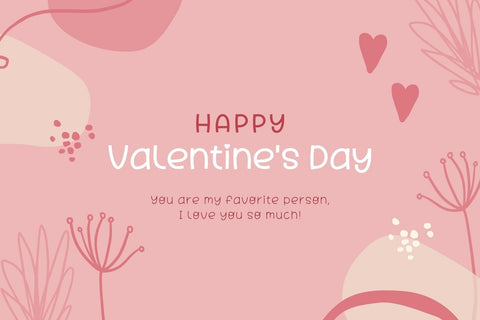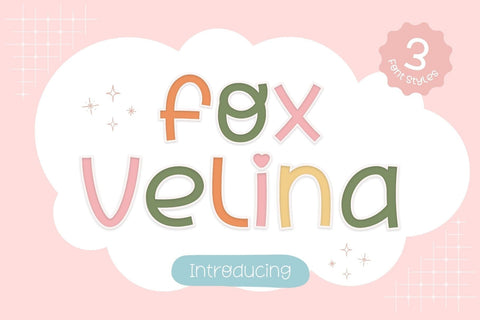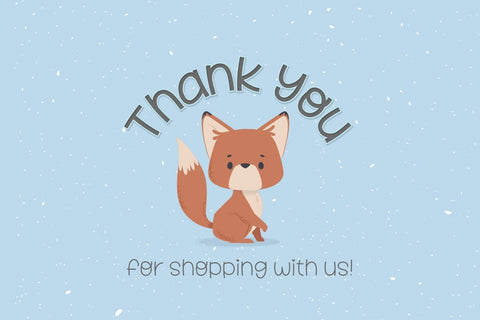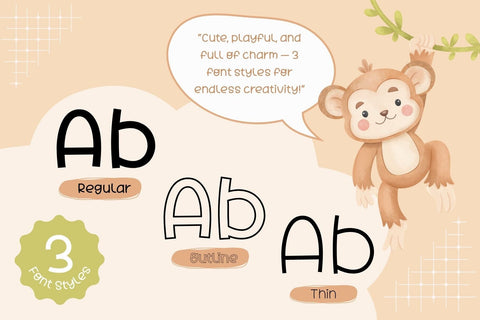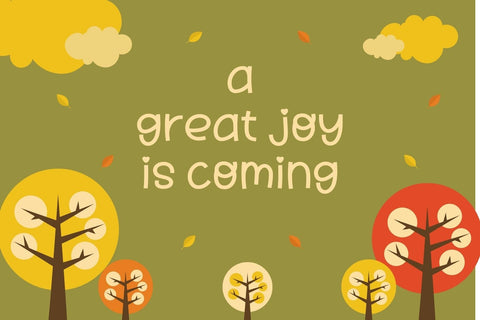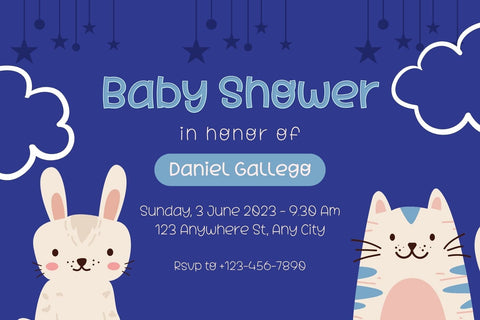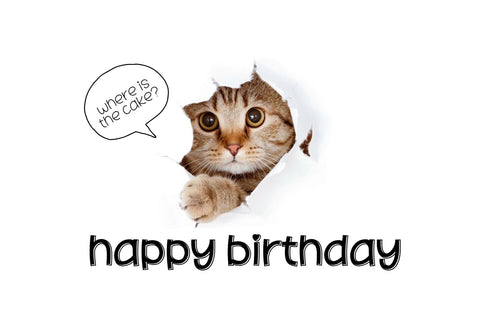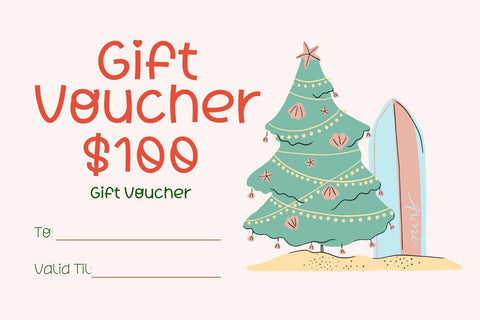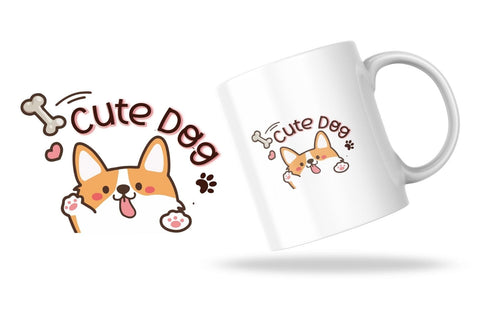
Fox Velina Font
Fox Velina – A cute and playful font family that’s full of charm!
This lovely font comes in 3 styles (Regular, Thin, and Outline), giving you endless possibilities to mix and match for your creative projects.
With its rounded edges and friendly letterforms, Fox Velina is perfect for kids’ designs, branding, book covers, invitations, product packaging, posters, social media, and more!
Add a touch of warmth and fun to your work with Fox Velina — a font that makes every design feel happy and full of life 💕